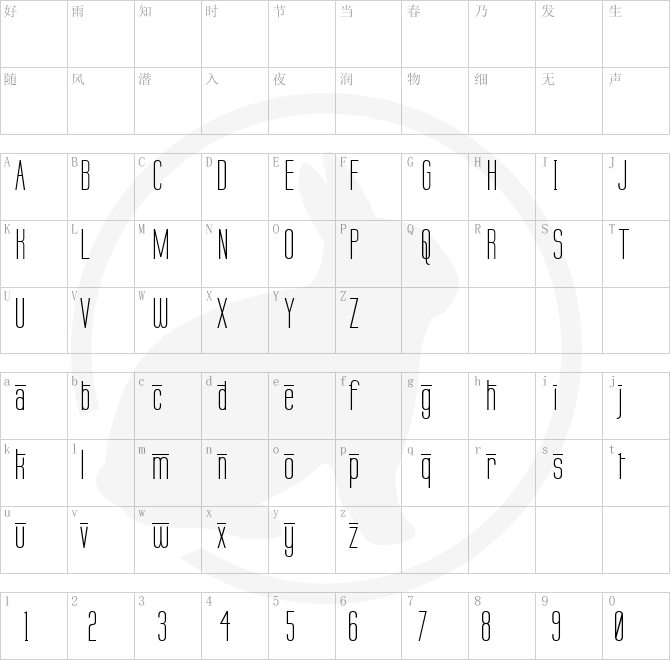
- Font Name:Labtop Overscore
Labtop-Overscore.ttf is a very beautiful artistic font, Labtop-Overscore.ttf is widely used in the design and printing of various books and pictures,Labtop-Overscore.ttf has a strong visual impact,Labtop-Overscore.ttf is a commonly used font in newspapers, magazines and books, and is used in posters, e-commerce Poster design, store design, logo design, font design and other fields.Labtop-Overscore.